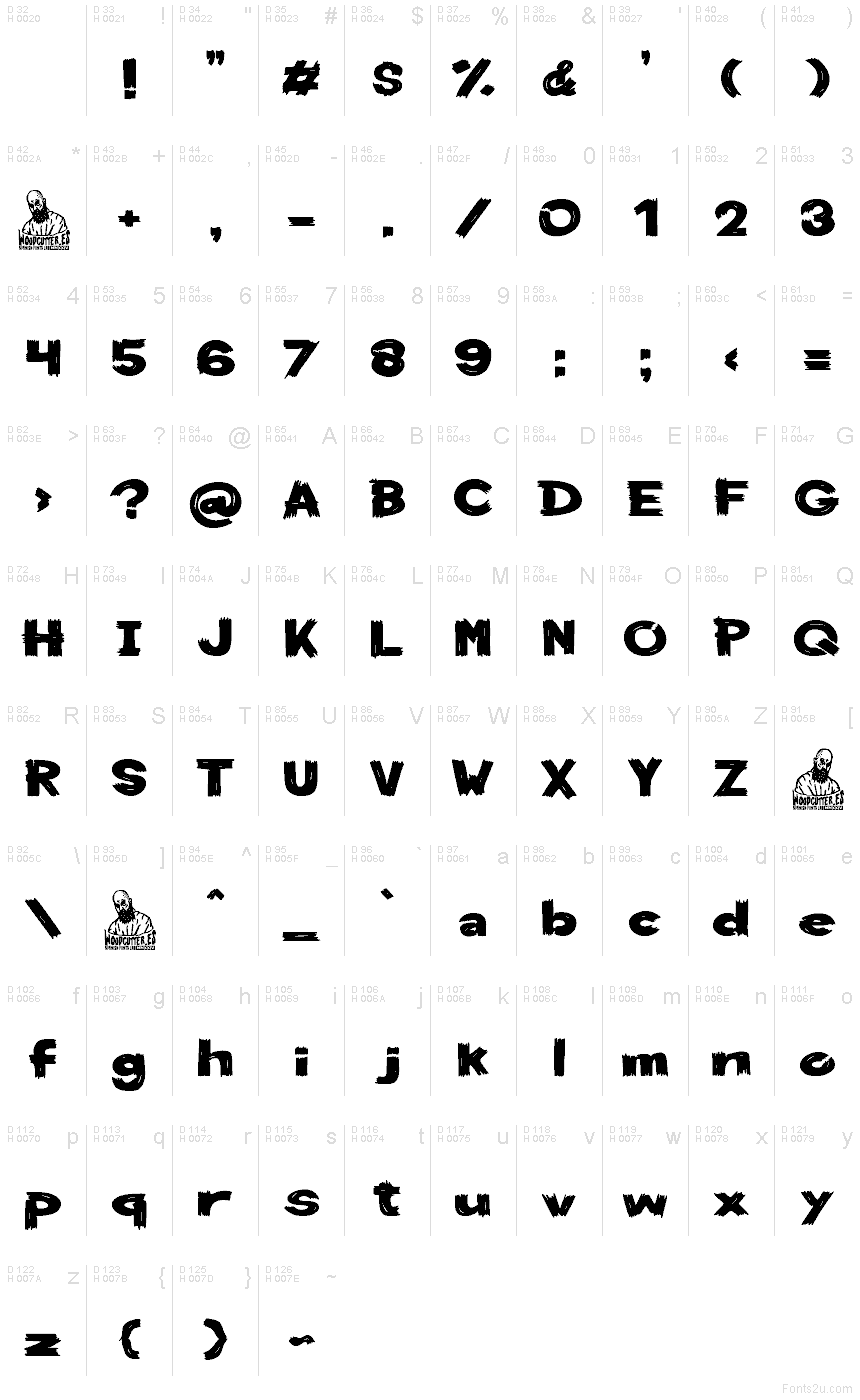
Monster Enterprise
Monster Enterprise font by Woodcutter is a brush typeface with an extremely bold weight and expanded width. With a rough texture, the font comes off as cartoonish, harmonious in its exaggerated forms and whimsical in appearance. Despite all of this quirky energy, the font preserves the fundamental components for excellent readability.
A free comedic font such as Monster Enterprise is great for posters and logos. It can be used on packaging designs of products like juices, jams, or fashion pieces like t-shirts and hats. Other interesting projects could be online comics’ titles/covers, children’s book covers, movie animation posters/titles and more.